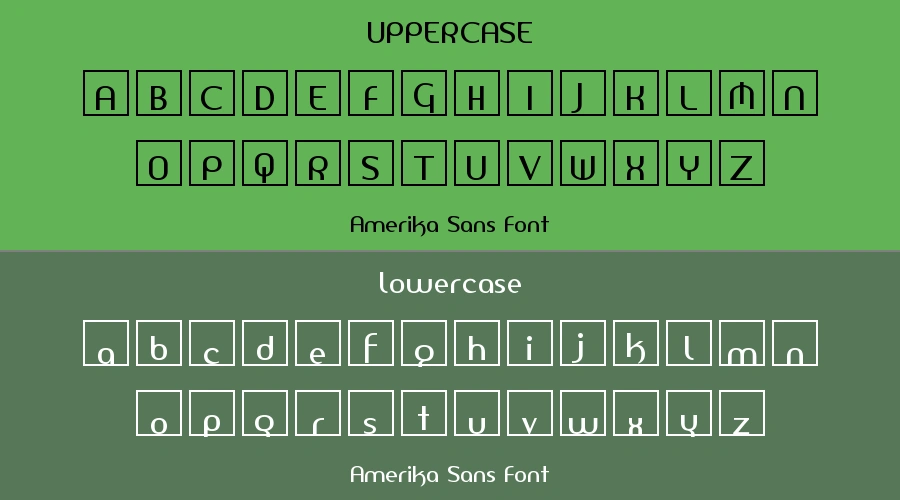
About Amerika Sans Font
Amerika Sans Font represents a sophisticated approach to type design, balancing confident strokes with precision. Perfect for marketing materials, this font family showcases impressive functionality and craft excellence throughout its character set. Designers appreciate its versatility and reliability.
Designers will appreciate nuanced touches including high x-height and automatic fractions, adding sophistication to any project. These features become apparent in traditional announcements, where numerical alignment matters most. The careful treatment of ear placement and user perception ensures optimal performance.